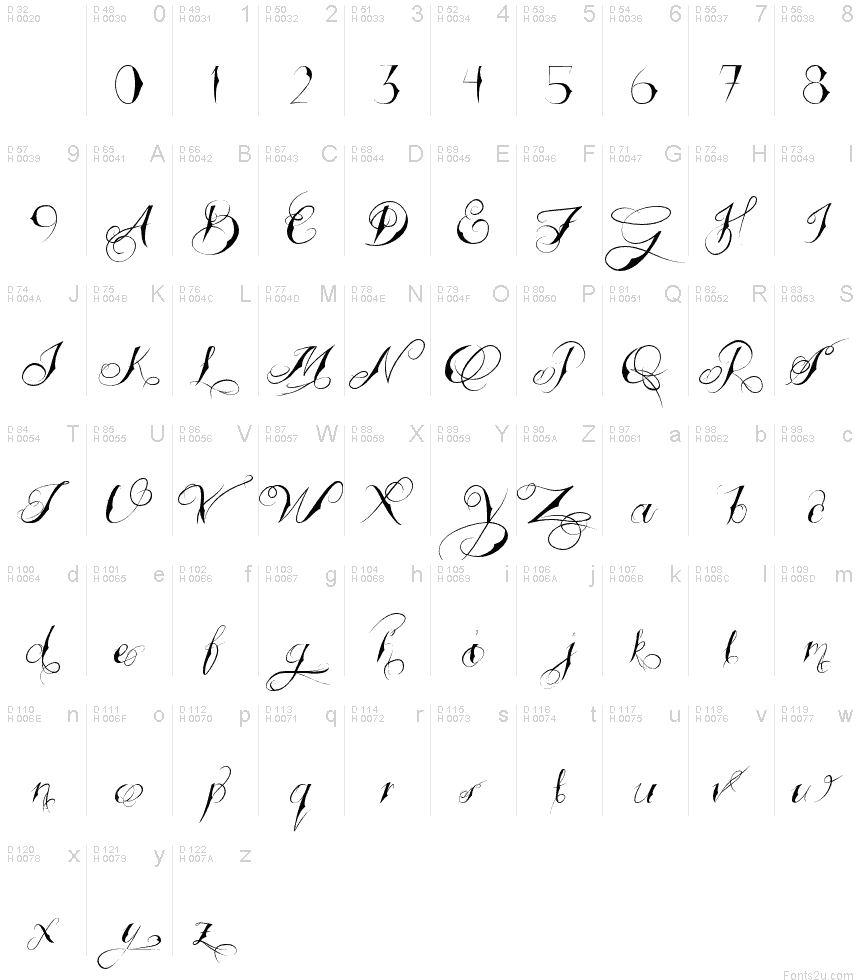
Tattooed Wedding is a free calligraphic script with an exceptionally ornate profile and an unmistakably ceremonial air. Its sharply tapered strokes move between broad black forms and hairline curves, creating dramatic contrast across the lettering. Long loops and sweeping flourishes extend far beyond the main shapes of the letters.
Wedding stationers and bridal boutiques can use this theatrical style for invitation suites, event signage, keepsake packaging, and formal fashion branding. The looping ornament can double as decorative linework beside floral illustration and monograms.
Tattooed Wedding